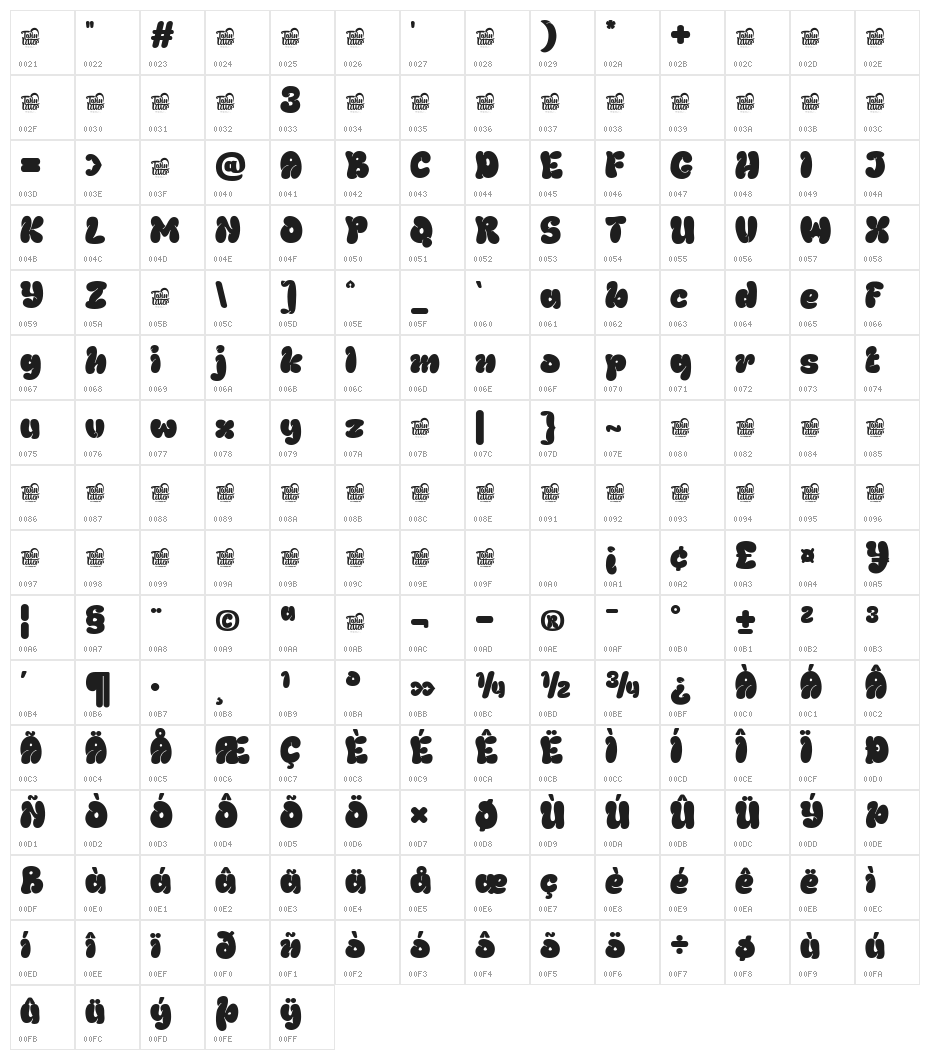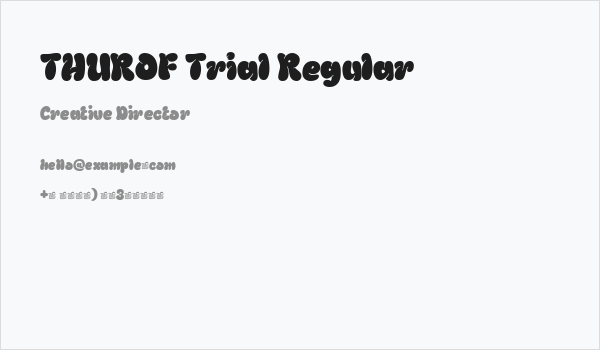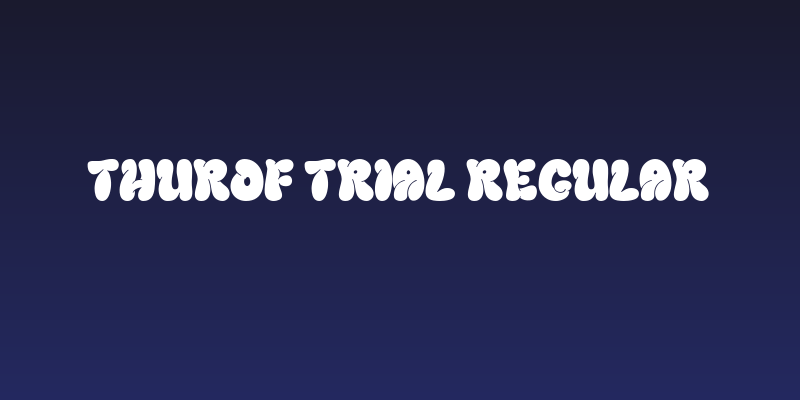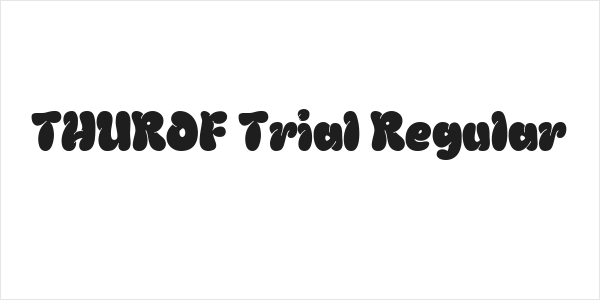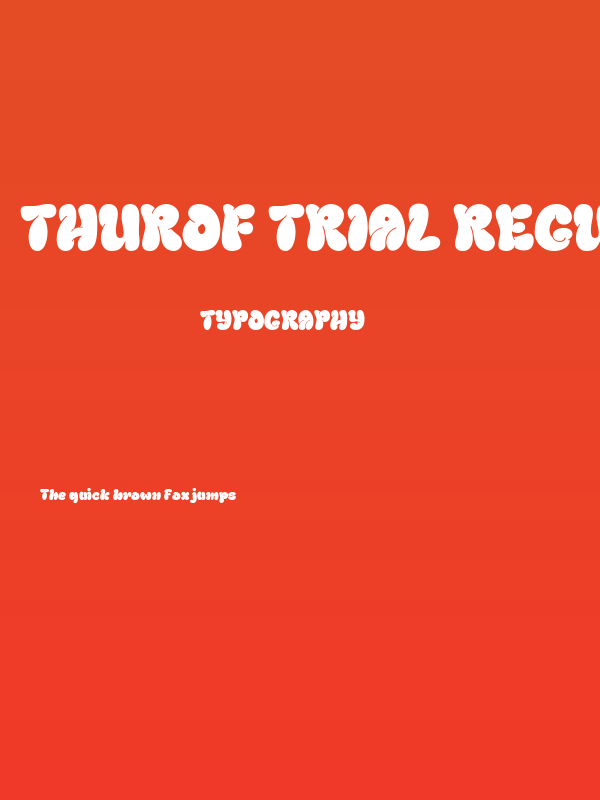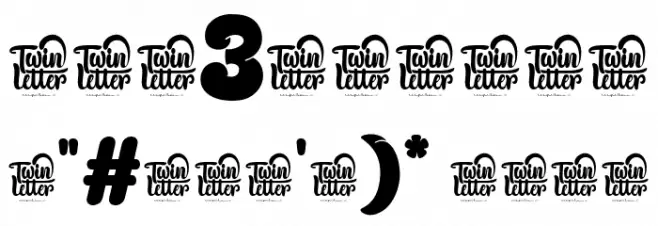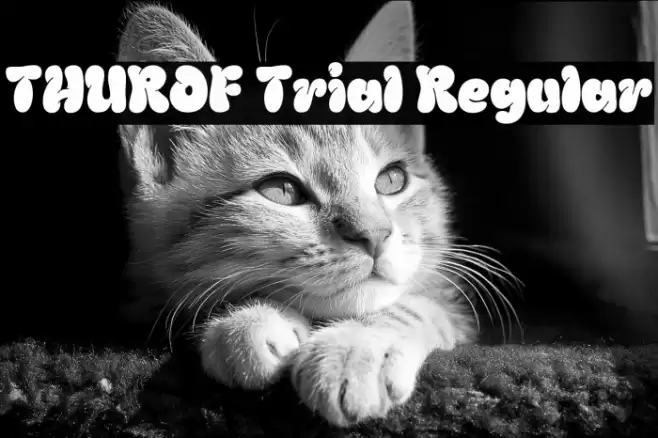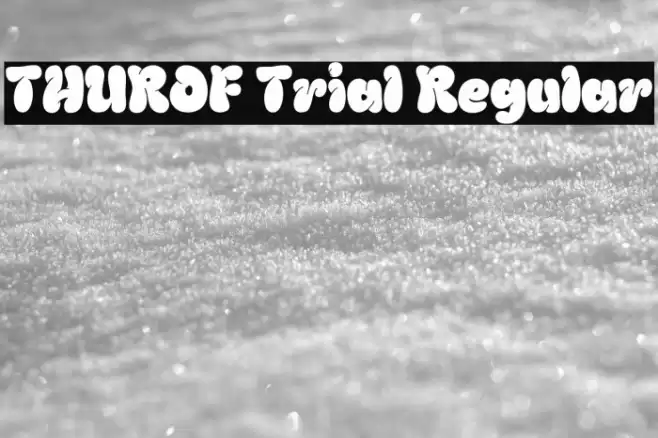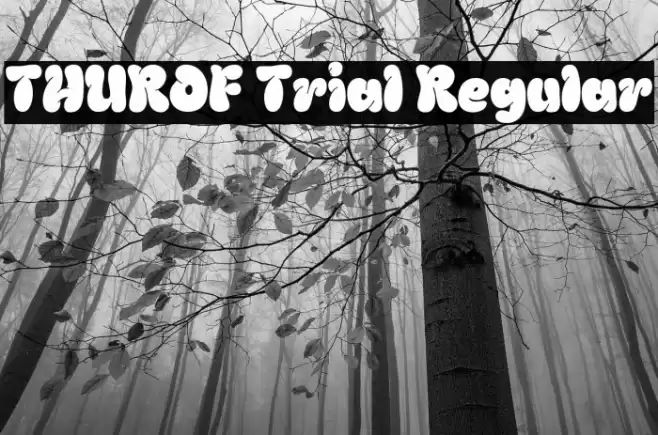
THUROF Trial Regular Font
THUROF Trial Regular Description
This font features a bold and playful design with thick, rounded strokes that give it a bubbly and lively appearance. The characters are highly stylized, with a unique flow that adds a sense of movement and energy. The uppercase and lowercase letters maintain a consistent weight, creating a cohesive look across the alphabet. The numbers and special characters follow the same design principles, ensuring uniformity. This font's distinctive style makes it stand out, making it ideal for projects that require a fun and engaging visual impact.
| Overall Style | Playful, Fun, Energetic |
| Use Case | Logos, Posters, Headlines |
| Proposed Projects | Perfect for children's books, playful branding, party invitations, and creative posters. |